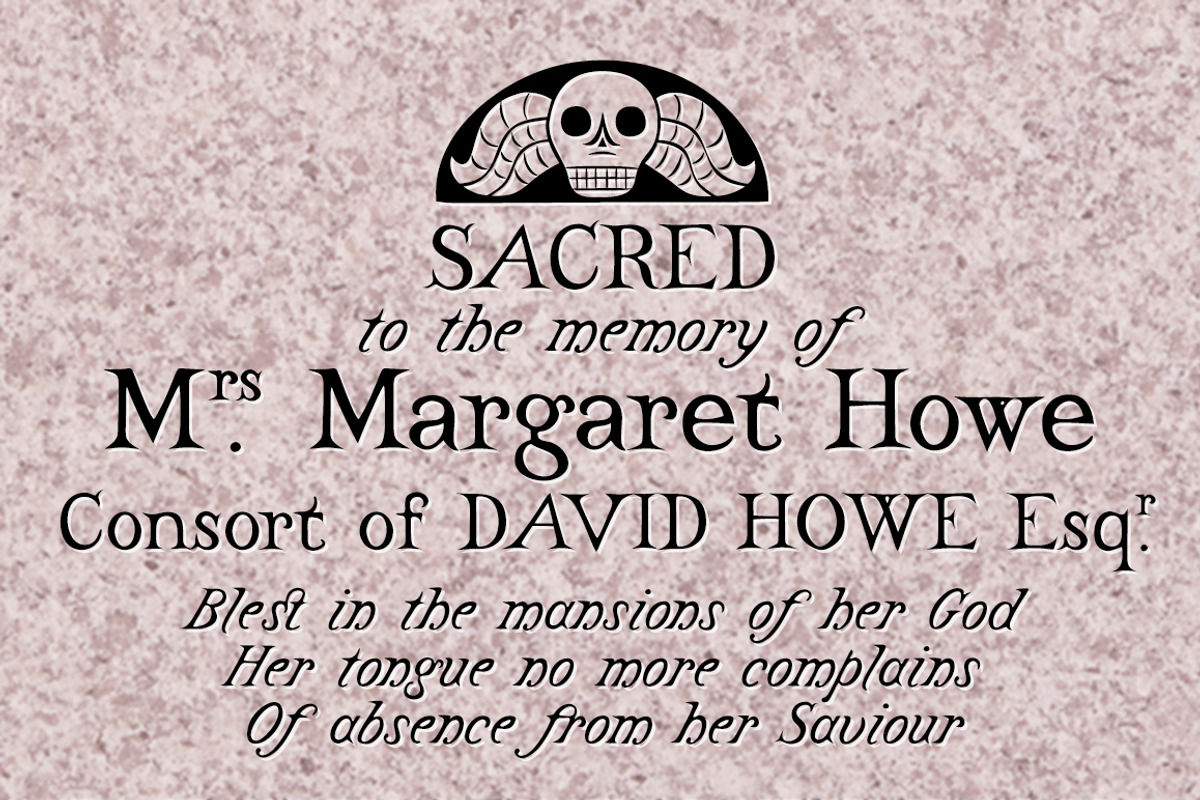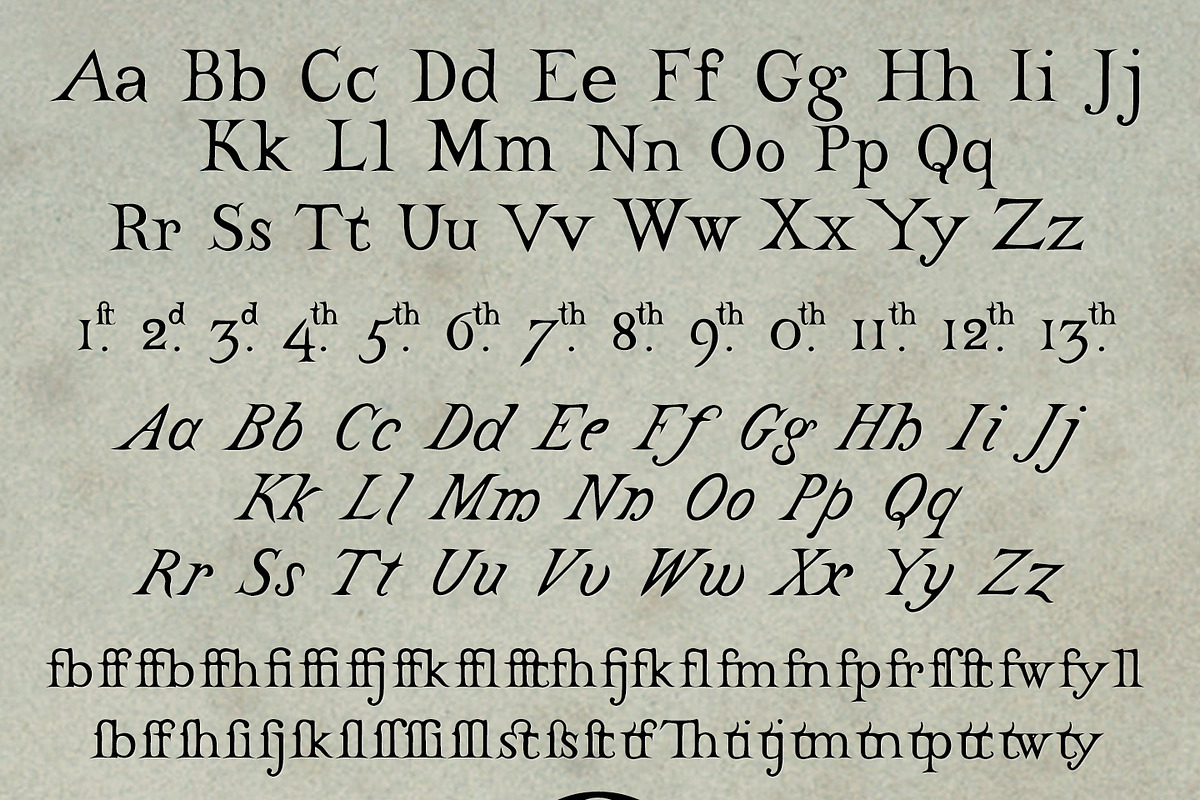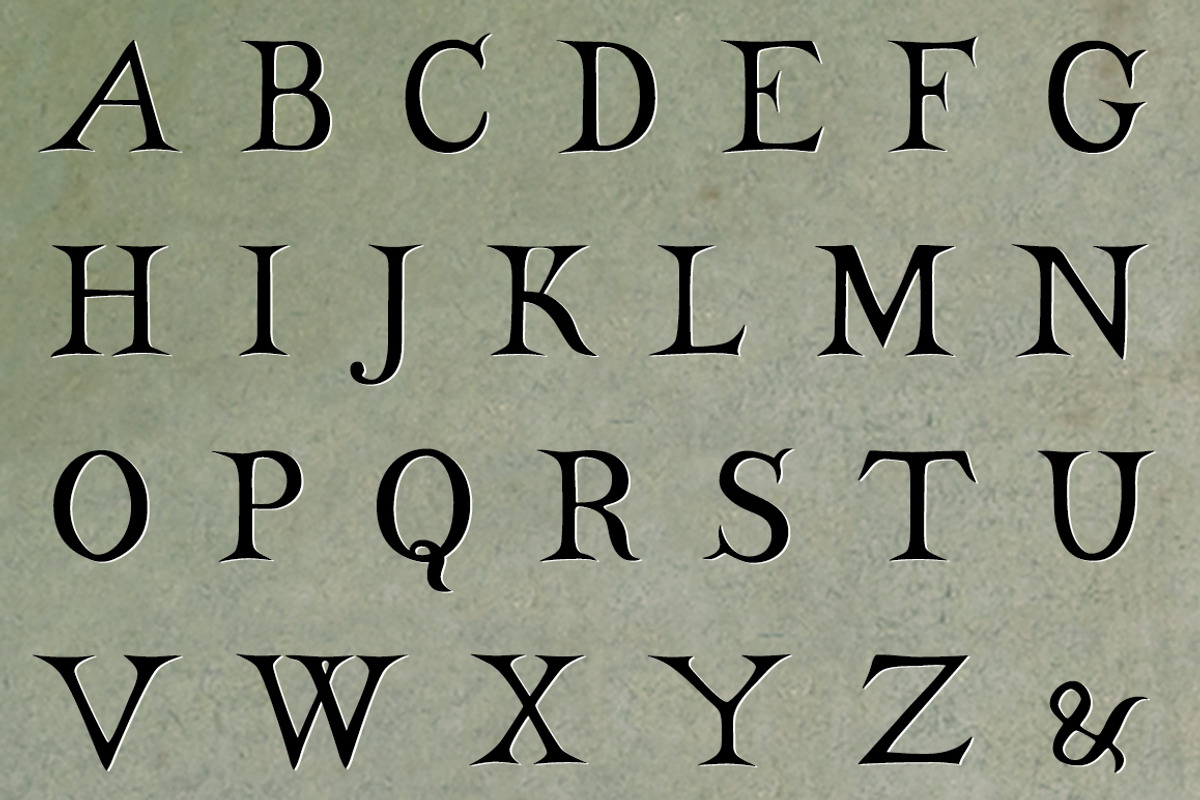
Castine, a cemetery headstone font
Castine, a cemetery headstone font by Three Islands Press is a font selected for branding, posters, packaging, typography.
- Castine has both roman and italic styles, each with numerous historical ligatures, old-style and lining figures, Central/Eastern European al
- Castine Regular
- Castine Italic
Why Castine, a cemetery headstone font is worth a look
Castine, a cemetery headstone font by Three Islands Press fits naturally into Branding, posters, packaging, typography.